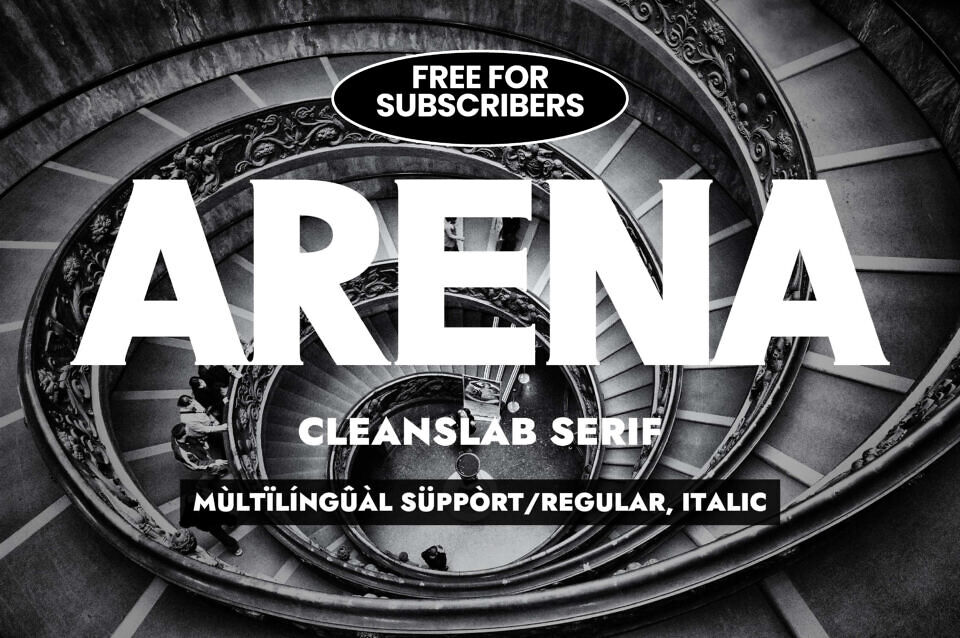
Arena Font
Arena is a bold and elegant slab serif font. Incredibly versatile, this font is suitable for a wide range of creative ideas.
Designed by: Minimalist Art Studio